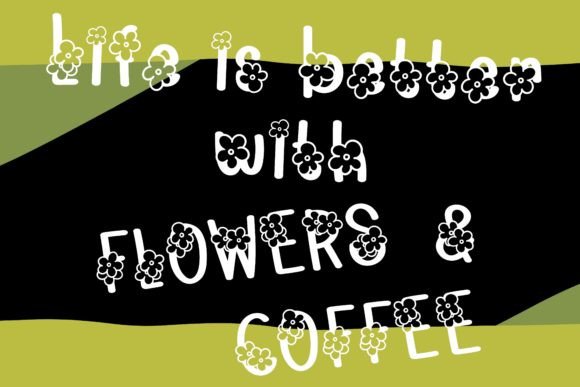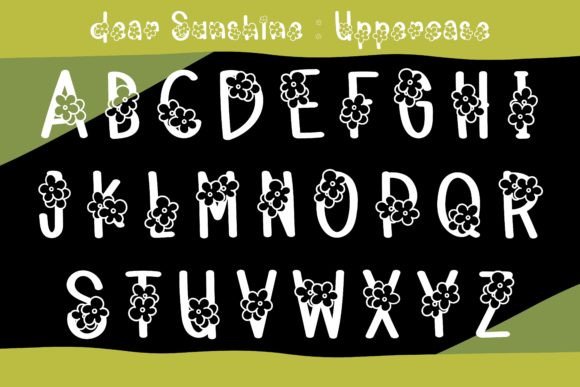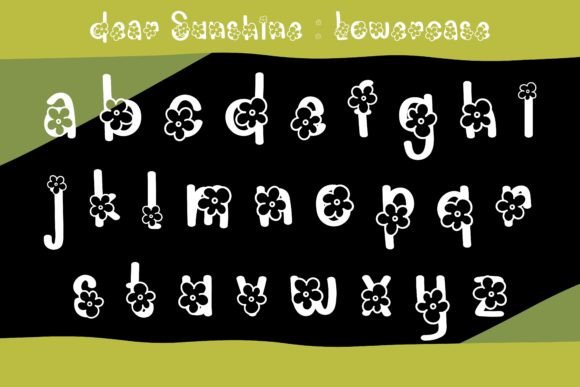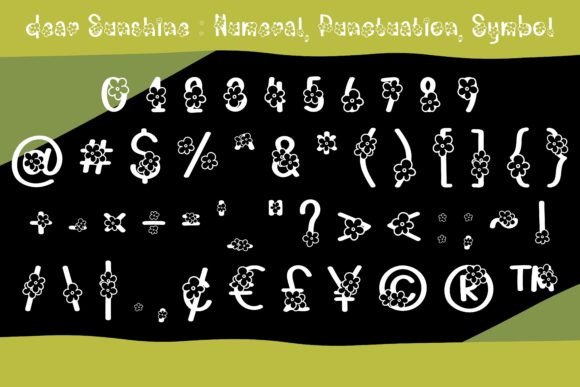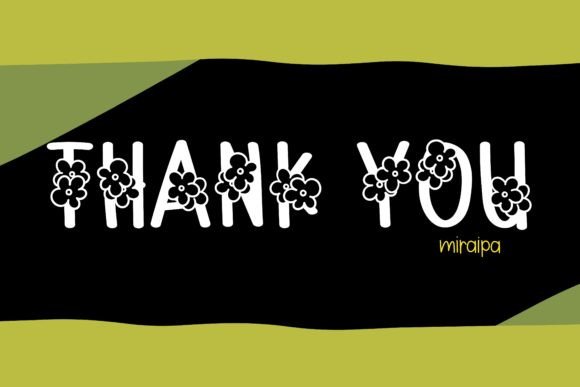
Discover the Charm of Dear Sunshine Font: Elevate Your Designs with a Cute and Lovely Touch
Are you on the hunt for a font that can add a dash of personality and whimsy to your designs? Look no further than the Dear Sunshine font, a delightful and versatile decorative font that’s sure to capture your heart. With its cute and lovely aesthetic, this font is perfect for designers and crafters looking to infuse their creative projects with a touch of sunshine and happiness.
The Versatility of Dear Sunshine Font
One of the standout features of the Dear Sunshine font is its incredible versatility. Whether you’re working on a branding project, a social media graphic, a craft project, or a digital illustration, this font can adapt to any design style with ease. Its unique charm and character make it an excellent choice for a wide range of applications, from playful and casual to elegant and sophisticated.
Imagine using Dear Sunshine font to create:
- Eye-catching social media graphics that grab attention and spark engagement
- Charming logos and branding materials that showcase your personality and style
- Beautiful digital art and illustrations that come alive with personality
- Delightful craft projects, such as handmade cards, scrapbooking, and DIY decor
Bringing Your Creative Ideas to Life
Dear Sunshine font has the power to transform your creative ideas into stunning visual realities. Its sweet and endearing aesthetic can add a touch of magic to any design, making it perfect for:
- Feminine and lifestyle brands looking for a unique voice
- Bloggers and influencers seeking to stand out in a crowded online space
- Artists and illustrators aiming to add a personal touch to their work
- Crafters and makers looking to create one-of-a-kind projects
Key Features of Dear Sunshine Font
So, what makes Dear Sunshine font so special? Here are just a few of its key features:
- Cute and lovely aesthetic: Perfect for adding a touch of personality and whimsy to your designs
- Highly versatile: Suitable for a wide range of design applications and styles
- Easy to read and use: Simple and intuitive, making it perfect for designers of all levels
- Unique character: Stands out from more traditional fonts, adding a touch of personality to your designs
Get Ready to Fall in Love with Dear Sunshine Font
If you’re looking for a font that can add a dash of fun, personality, and charm to your designs, look no further than Dear Sunshine font. With its cute and lovely aesthetic, incredible versatility, and ease of use, this font is sure to become a favorite in your design toolkit.
| Font Name | Dear Sunshine Font |
| Author | miraipa |
In conclusion, Dear Sunshine font is a delightful and versatile decorative font that’s perfect for designers and crafters looking to add a touch of personality and whimsy to their creative projects. With its cute and lovely aesthetic, incredible versatility, and ease of use, this font is sure to capture your heart and become a staple in your design toolkit.
Whether you’re a seasoned designer or just starting out, Dear Sunshine font is an excellent choice for anyone looking to elevate their designs and bring a little sunshine into their creative projects.